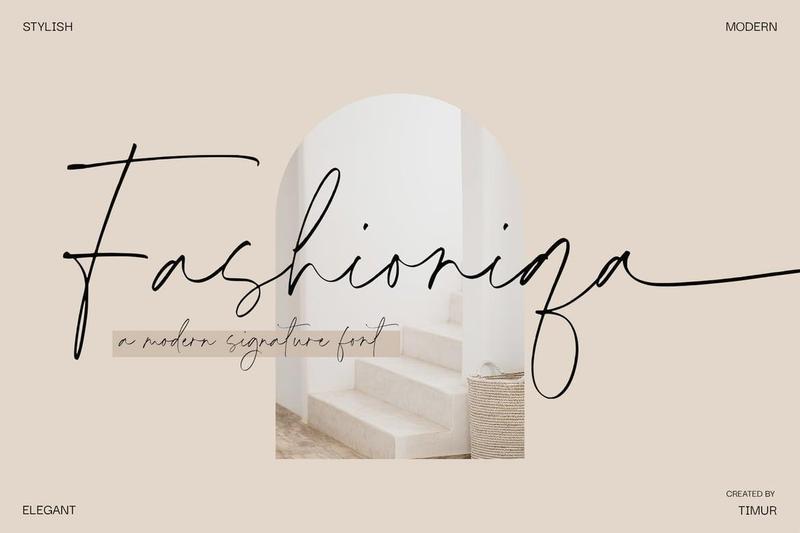
Fashioniqa Font K8C57EX
Fashioniqa A Modern Signature Font, which was created with great care and specially created for you.
Fashioniqa is perfect for product packaging, branding project, megazine, social media, wedding, or just used to express words above the background.